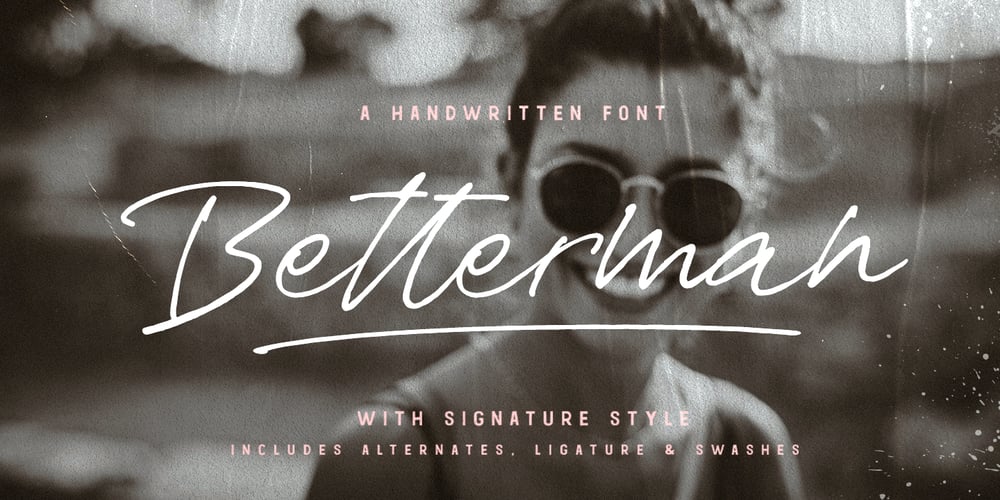
Betterman
Betterman font
Betterman Font Family was designed by Gitayogi Irhandi and published by Scratch Design. Betterman contains 1 styles and family package options. Betterman is a realistic signature font, that is perfect for you to create a realistic signature logo, so easy to use and you can combine it with the swashes and 20 ligatures to make your signature more natural. Betterman font is also perfect for different projects such as invitations, quote text, stationery, wedding invitation designs, social media posts, advertisements, website & landing pages, product packaging, product designs, label, photography, watermark, and more like special events.How to use this font: Just open your Opentype features ( Minimum Compatible with Adobe Photoshop CS 6 and Adobe Illustrator CS 6 ) in Adobe Photoshop go to Window – Glyphs and all the alternates will appear while using the script font to use the ligatures and swashes. As you type, your text will look like a natural signature or handwriting.What are you waiting for? Download now Betterman font and make your own Signature logo!